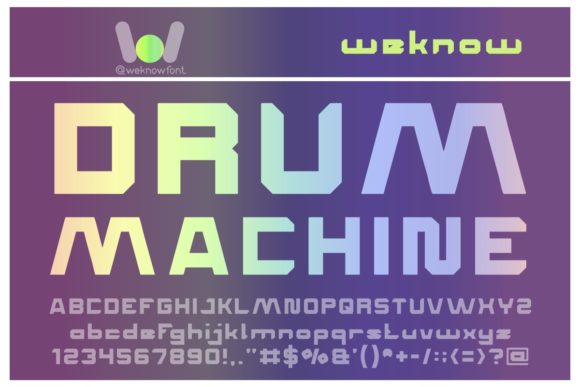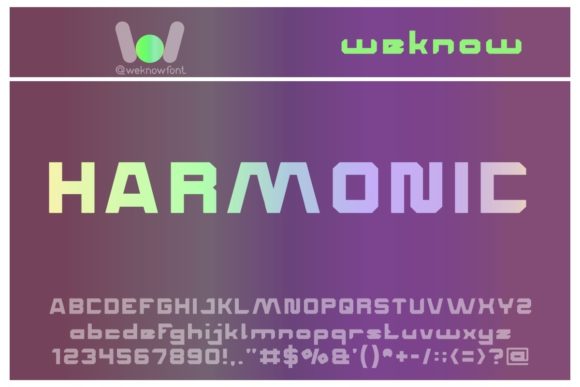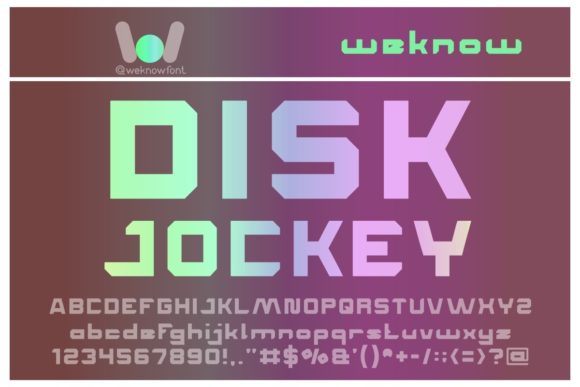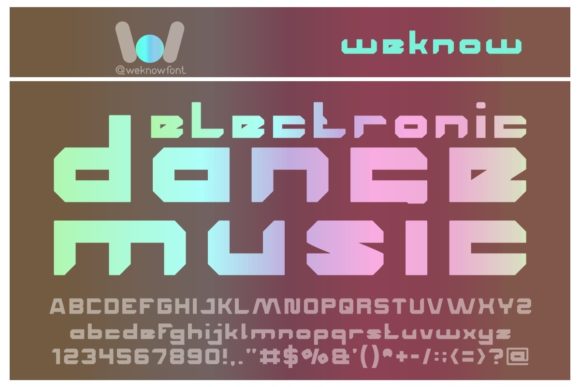
Introduction to House Music Font
House Music is a cool, bold and futuristic display font.
It is suitable for logotype, headline font, in corporate identity, brand identity, apparel industry, poster, music, movie, game, magazine, book, comic, cartoon, YouTube, Instagram, website, or any of your creative design projects .